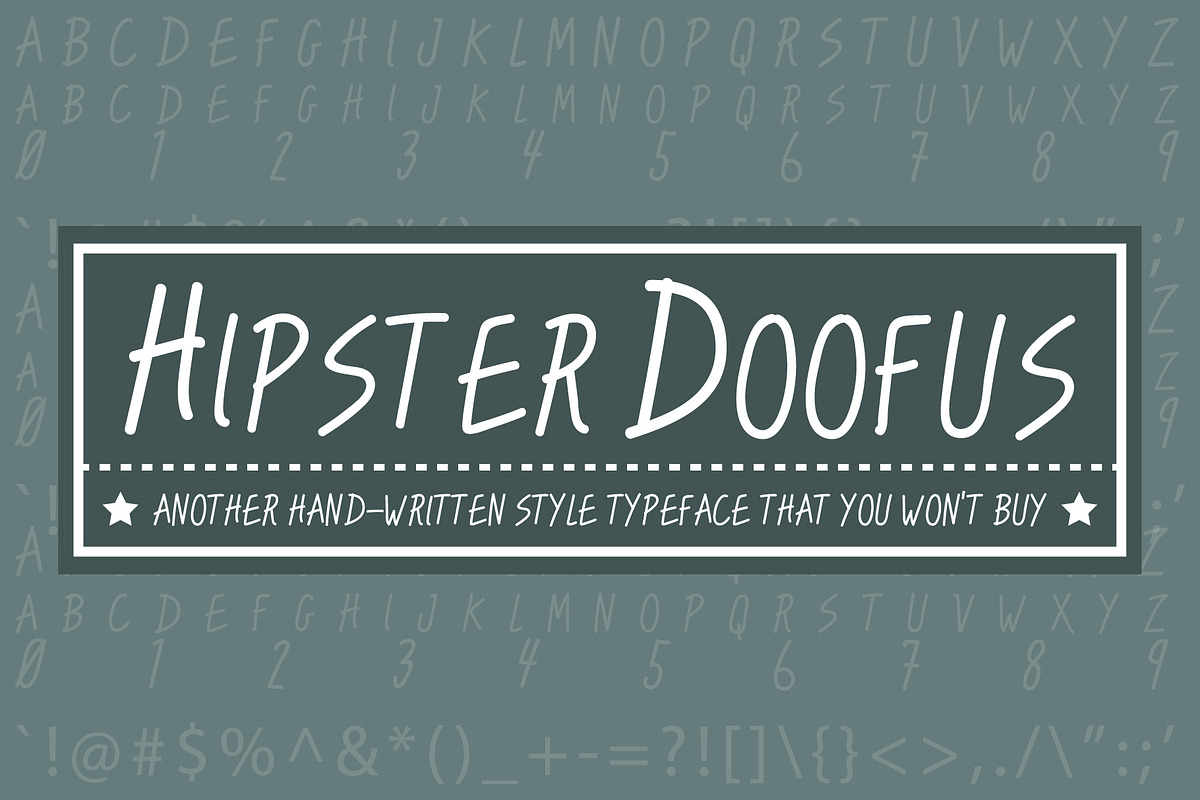
Hipster Doofus - Typeface
Hipster Doofus - Just another hand-written style typeface nobody wants..
Why Hipster Doofus - Typeface is worth a look
Hipster Doofus - Typeface by bciii design fits naturally into Branding, posters, packaging, typography.